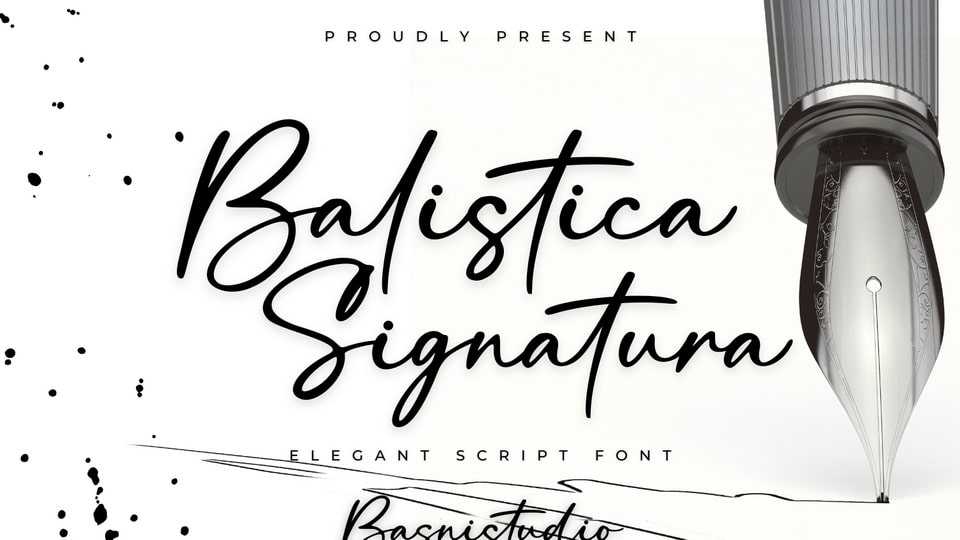
Download Balistica Signatura font, an elegant script typeface that adds a elegant, versatile touch to everything from branding and social media to invitations and packaging.